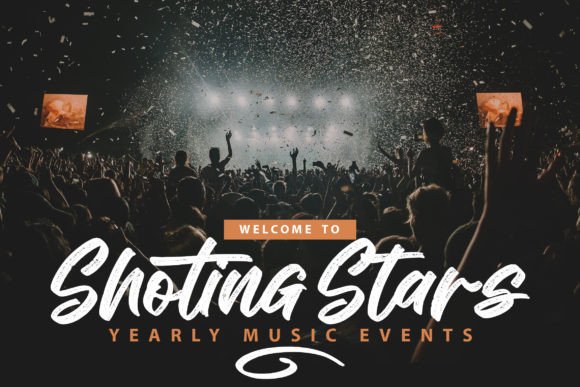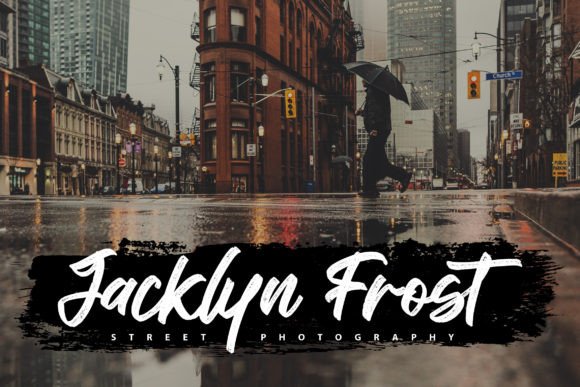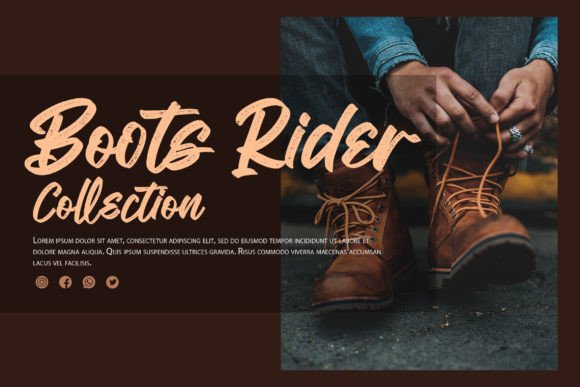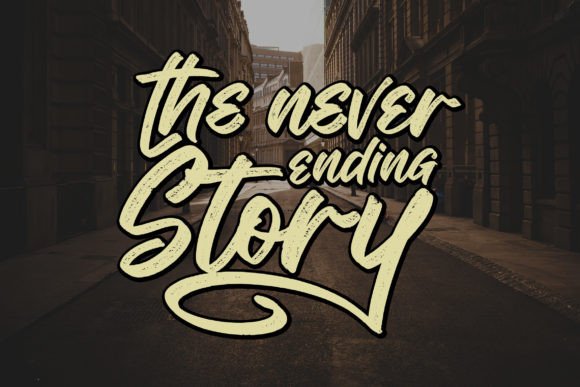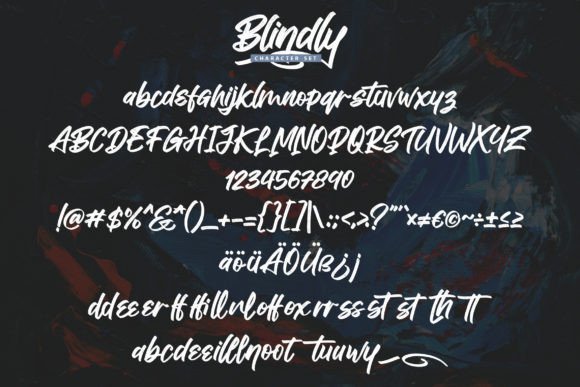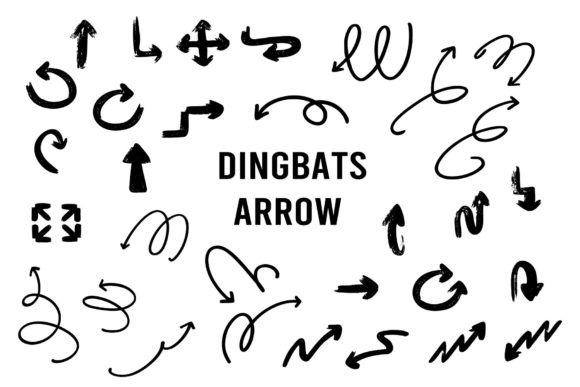
Blindly Font
About Blindly Font
Introducing Blindly, a bold and assertive handwritten brush font that maintains classy calligraphic influences while exuding a contemporary and fresh feel. Fall in love with this font and bring your projects to the highest levels of style and impact.
The bold and assertive nature of Blindly makes it an excellent choice for projects that require a strong visual presence. Whether you’re working on branding materials, posters, signage, or any creative project, Blindly is crafted to bring a dynamic and confident touch to your designs.
Consider using Blindly to create eye-catching and impactful branding materials that stand out, design bold and contemporary posters, or add a touch of assertiveness to your signage. The brush style of Blindly ensures that your text carries a sense of energy and freshness, making it suitable for various design contexts.
In essence, Blindly is more than just a font; it’s a design tool that brings boldness and freshness to your projects. Let it be the handwritten brush font that elevates your designs, making them dynamic, confident, and visually striking.